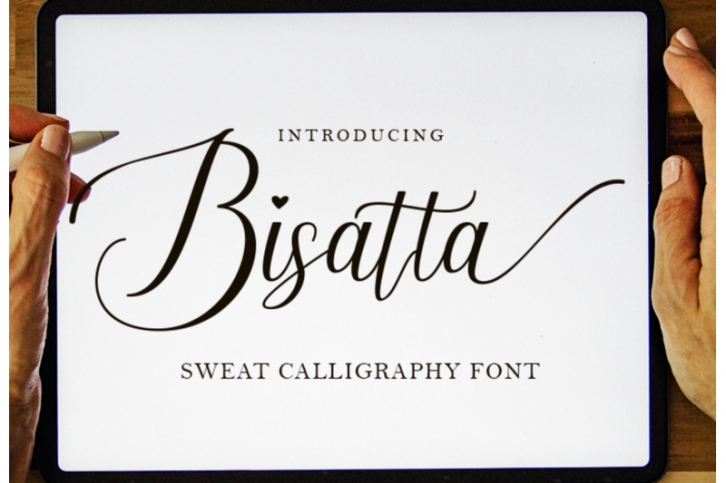
Bisatta| Calligraphy Font Download
Bisatta is a gorgeous script perfect for branding, wedding invitations, and any other romantic project. Font Features:
Lowercase start and end swash
Uppercase starts swash
Connecting hearts
Initials